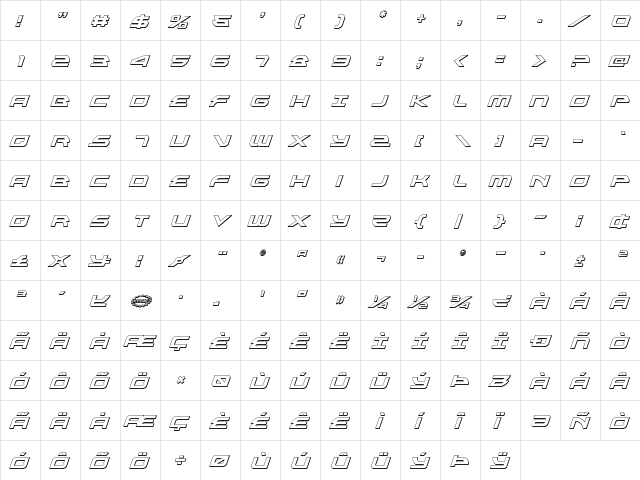
Alexis 3D Italic Italic
Design Context for Alexis 3D Italic Typeface
Alexis 3D Italic is a composed and adaptable typeface that performs quietly and consistently across a wide range of design contexts. The slanted form adds forward momentum and visual energy.